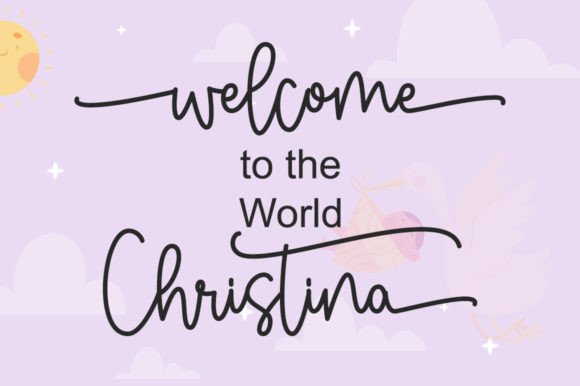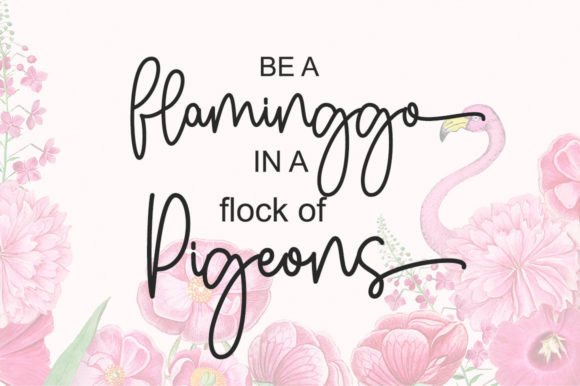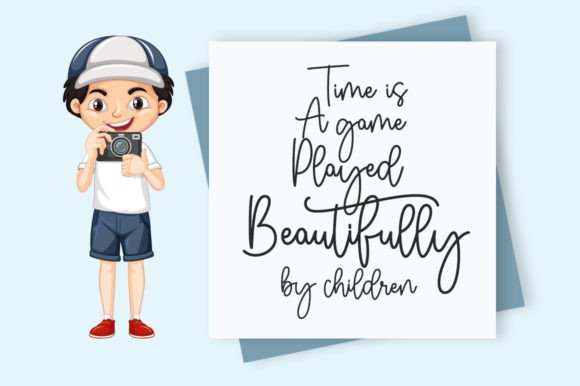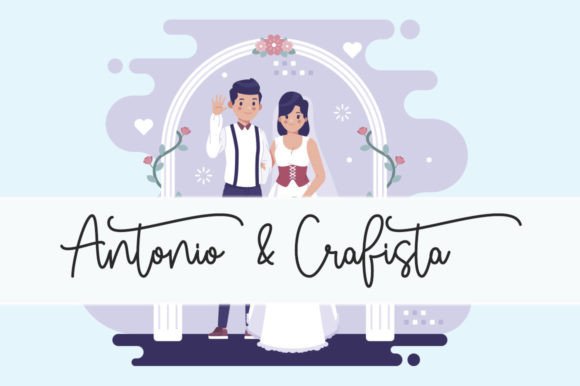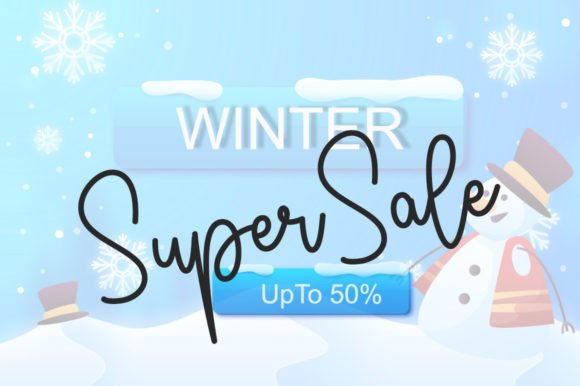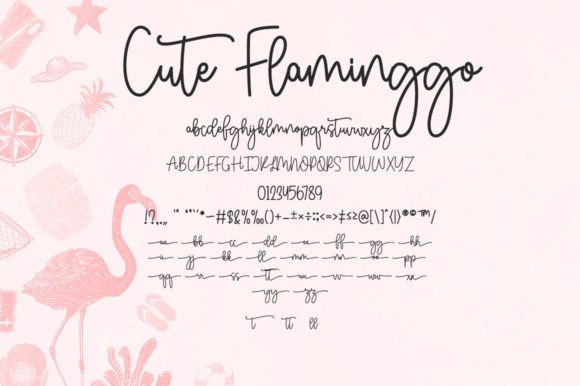
The Cuteflaminggo Font: A Designer’s Delight
I’ll never forget the time I was working on a wedding invitation project, and my client asked for a font that was both elegant and modern. I scoured the internet, tried out countless fonts, but nothing seemed quite right. That was until I stumbled upon the Cuteflaminggo font. Its delicate script and classy look instantly won me over, and I’ve been hooked ever since!
A Personal Review of Cuteflaminggo
- ✨ Beautiful and delicate script: Cuteflaminggo has a unique, elegant look that’s perfect for logos, branding, invitations, and more.
- 💫 Modern and classy: This font has a timeless look that will elevate any design project.
While Cuteflaminggo is an amazing font, there are a few things to keep in mind:
- ⚠️ Some characters may require manual kerning: As with any script font, you may need to adjust the spacing between certain characters to get the perfect look.
- 🤔 Not suitable for body text: Cuteflaminggo is best used for headings, titles, and short paragraphs. Its delicate nature makes it less suitable for longer blocks of text.
The Story Behind Cuteflaminggo
Cuteflaminggo was designed by a talented font creator who wanted to craft a unique, elegant script font that would inspire designers and creatives. With its delicate lines and modern look, Cuteflaminggo has become a popular choice for designers around the world.
Q: Is Cuteflaminggo suitable for body text?
A: No, Cuteflaminggo is best used for headings, titles, and short paragraphs. Its delicate nature makes it less suitable for longer blocks of text.